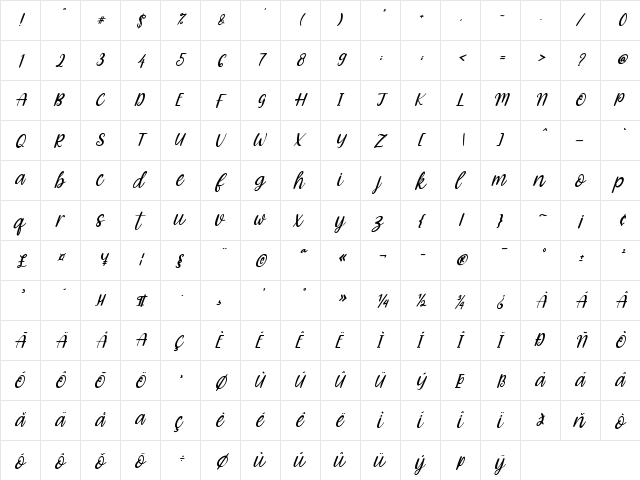
Blossom Italic Regular
Design Context for Blossom Italic Typeface
Blossom Italic is a composed and adaptable typeface that performs quietly and consistently across a wide range of design contexts. The slanted form adds forward momentum and visual energy.
Pro Tip: Try Blossom Italic for annotation and caption copy alongside an upright companion — the contrast in angle creates a dynamic but ordered typographic system.